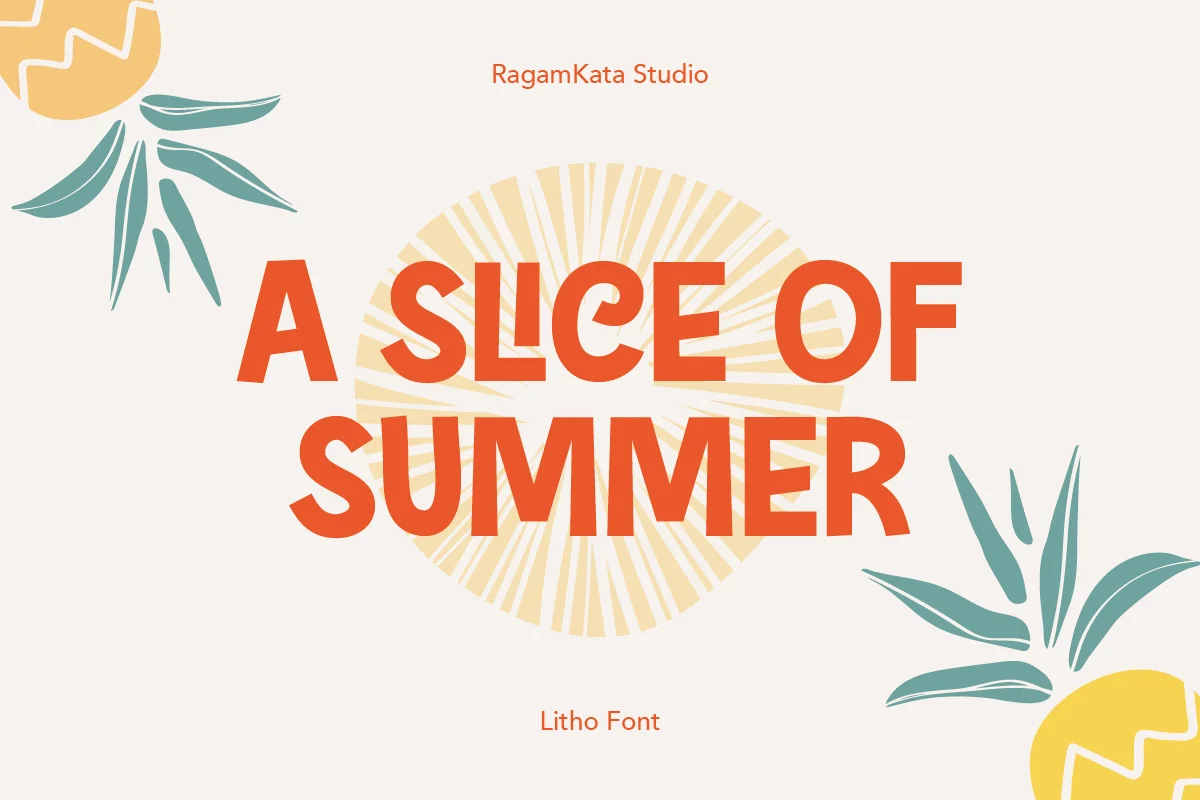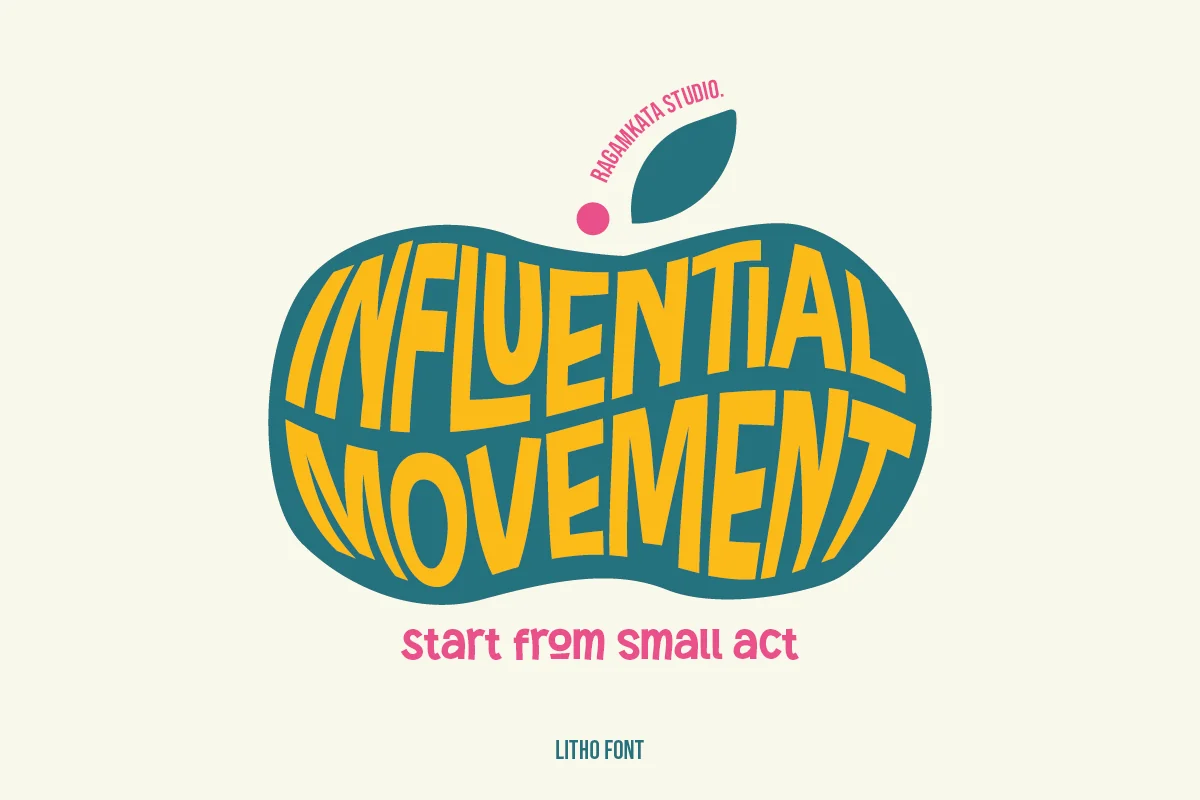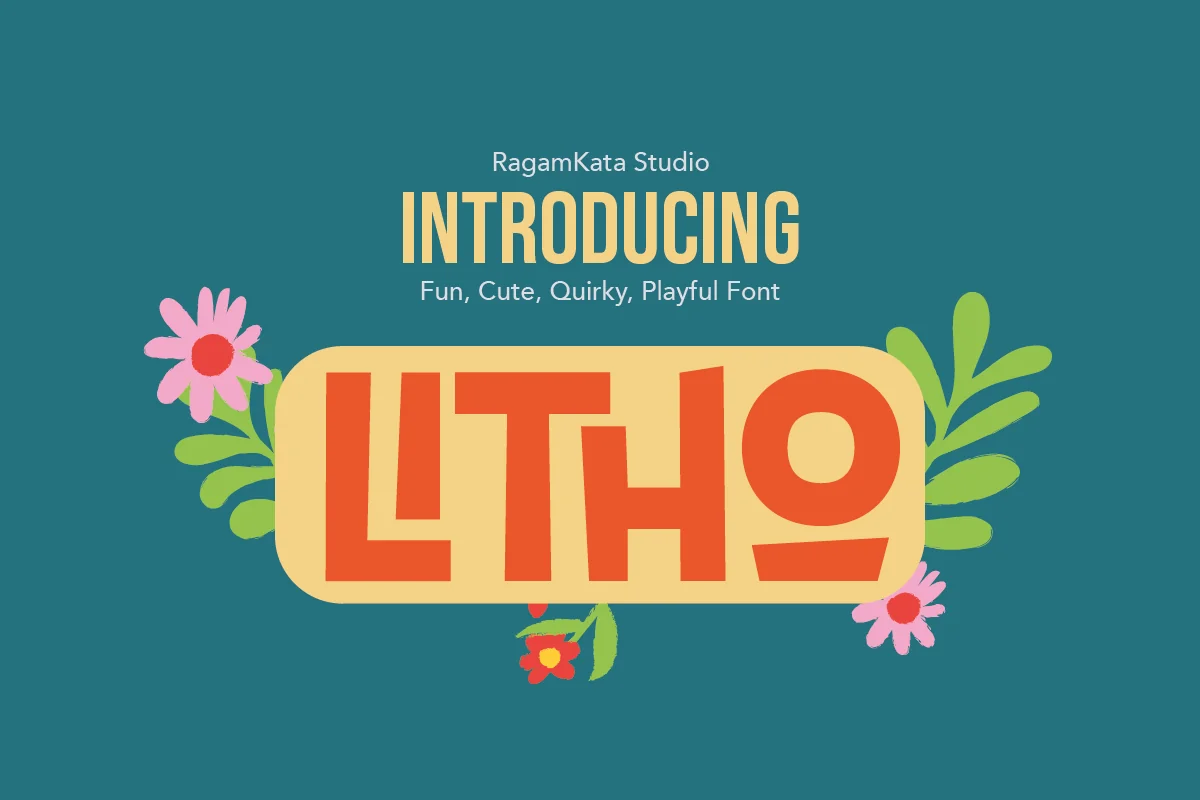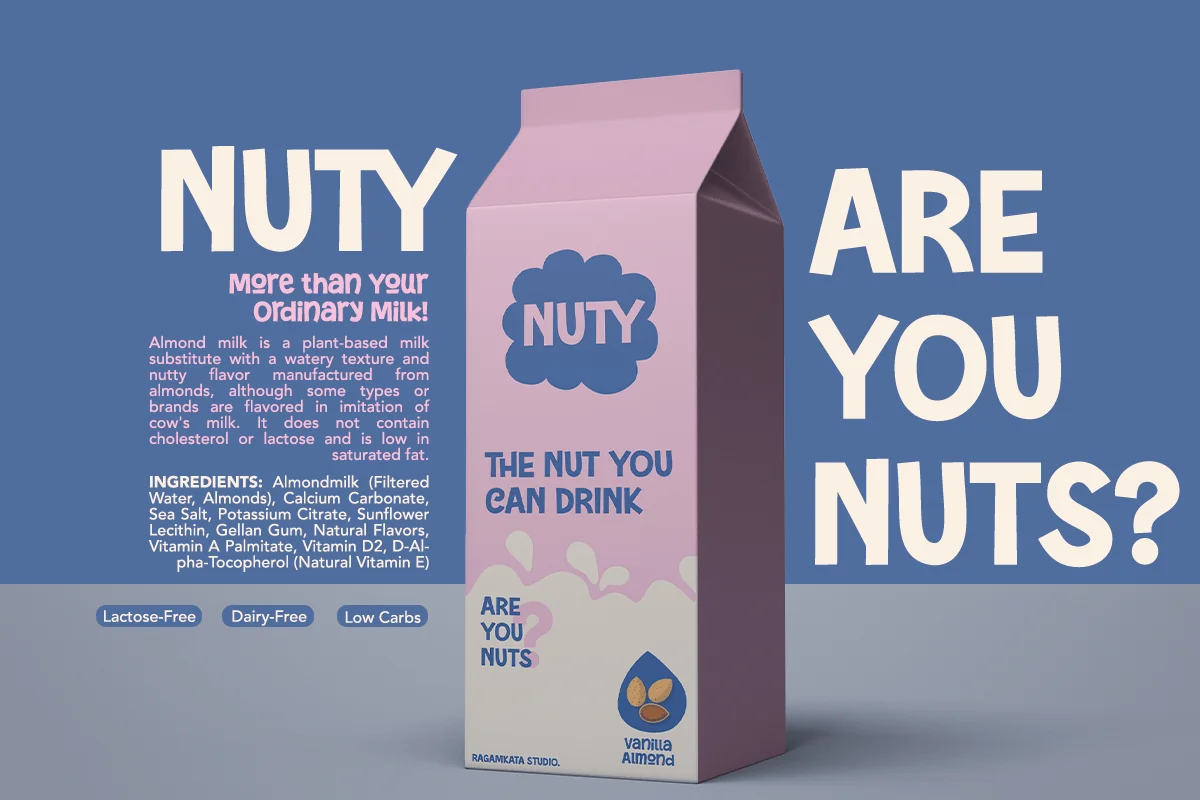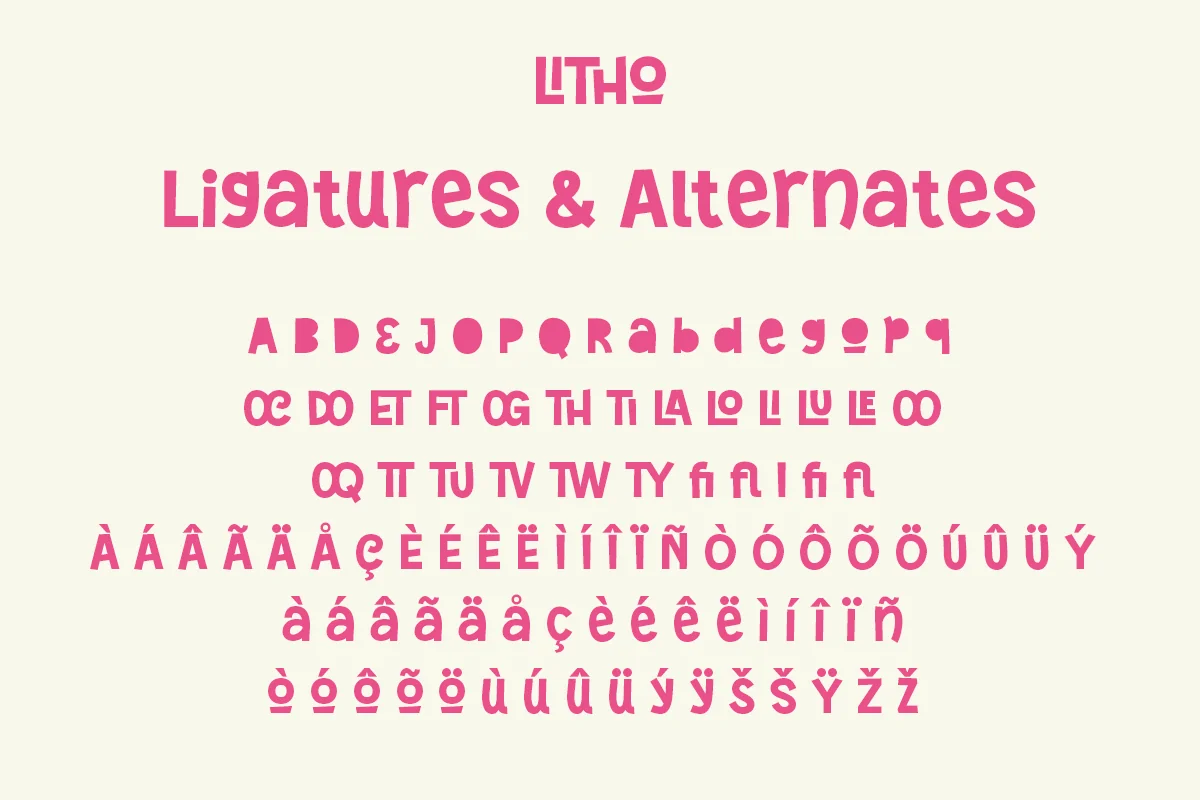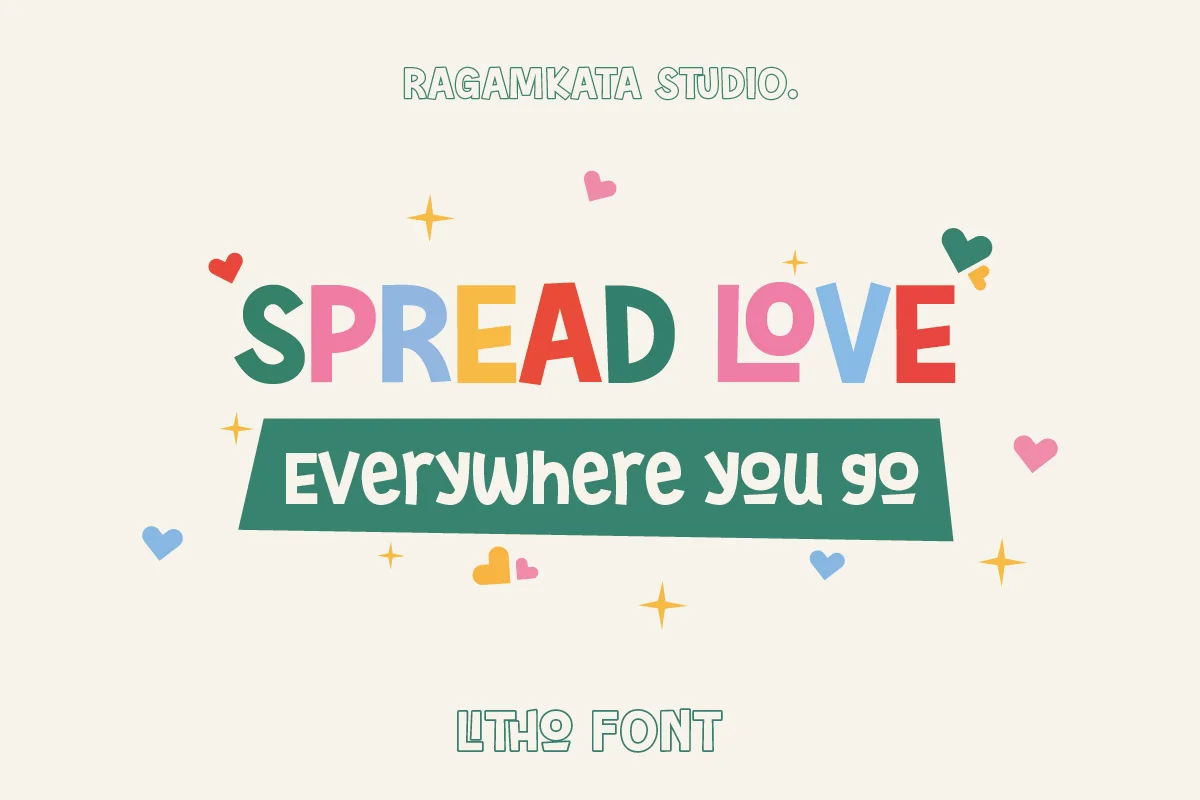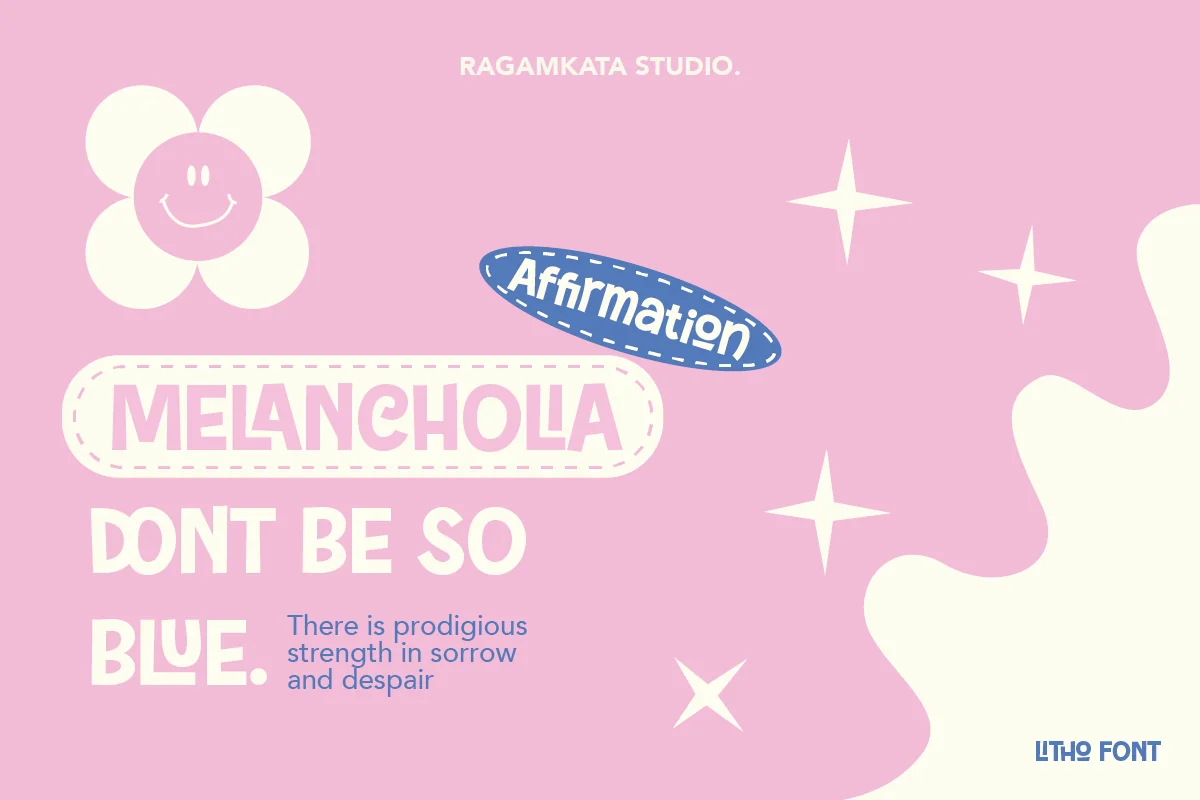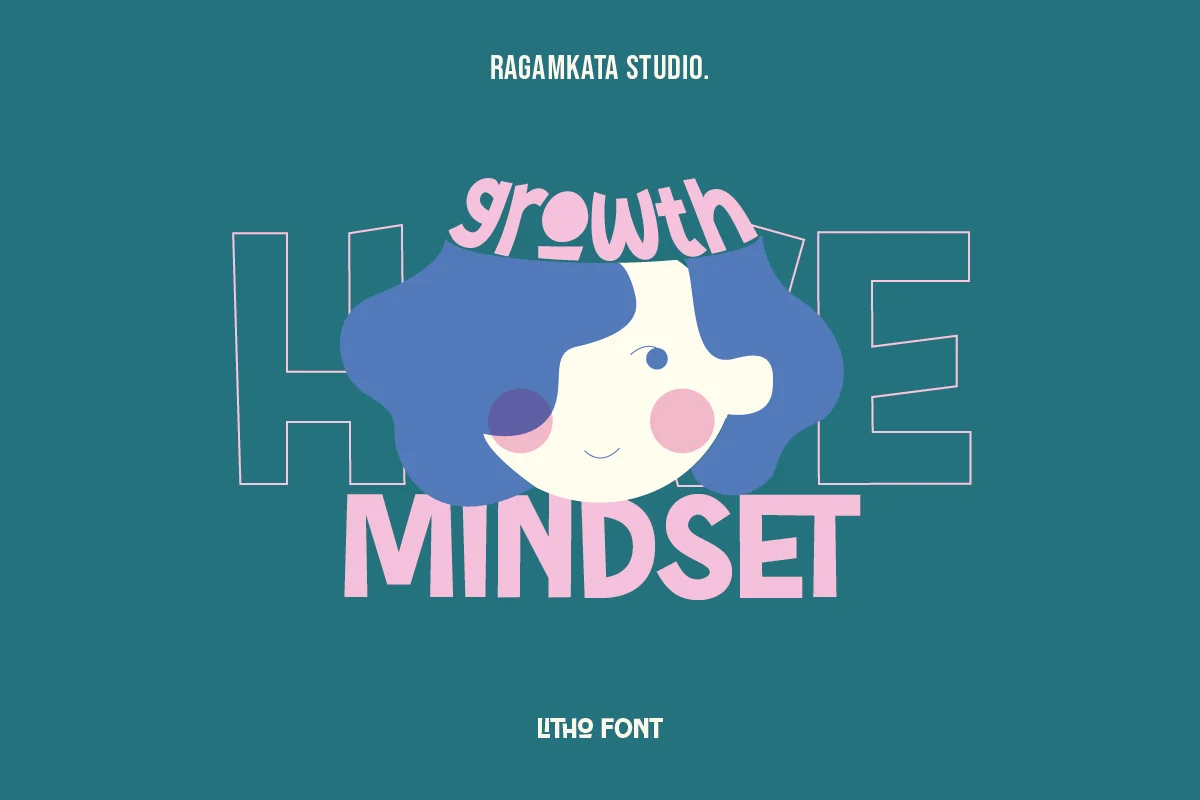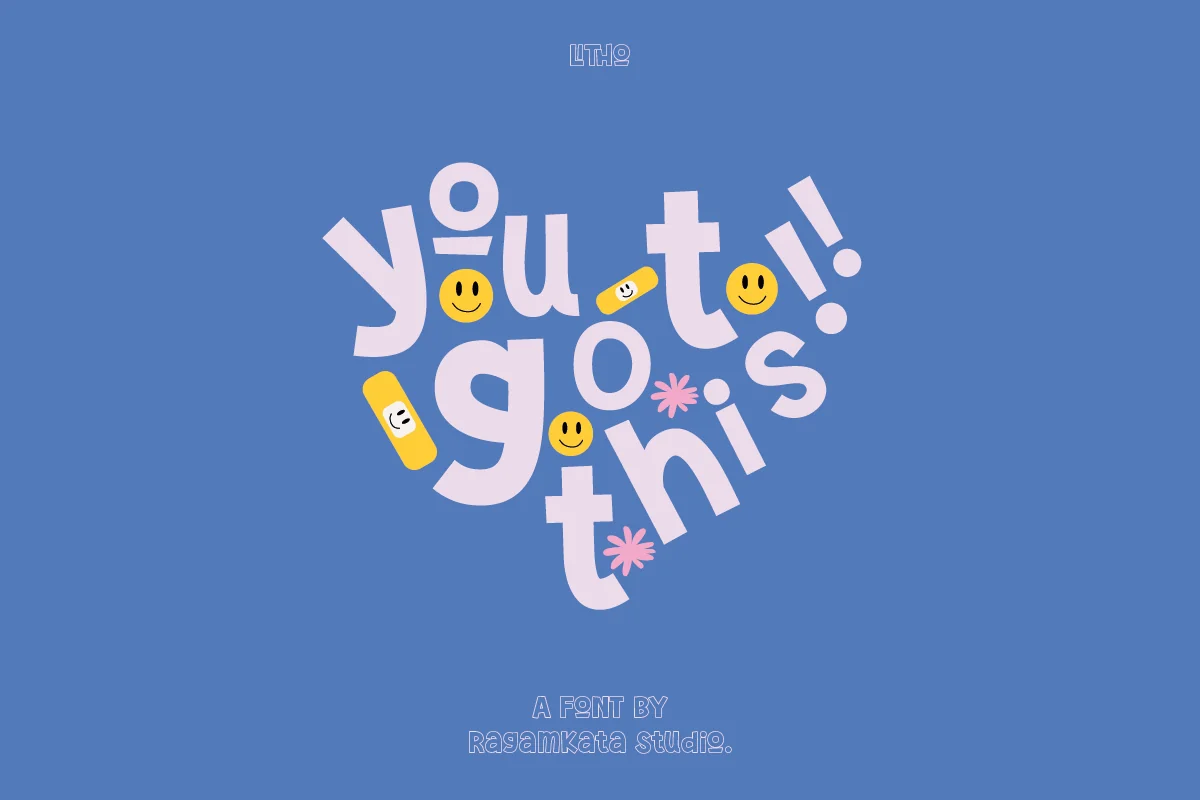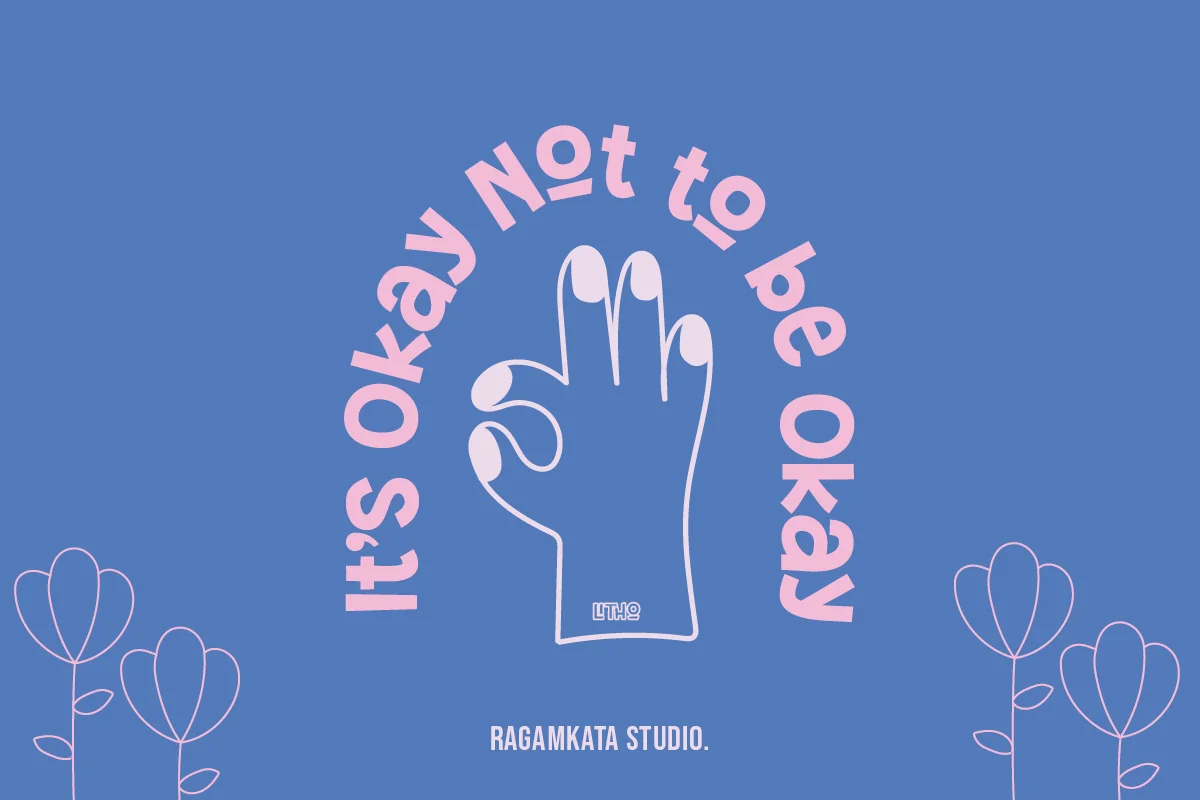
Litho – Fun & Playful Font
Litho, a quirky font that will make your design looks outstanding! With Litho, you can you’re your project even more fun. A playful font with it’s bold and unique shaped font, will make your design catches their eyes. This typeface is a perfect for an invitation, posters, logo, and many more! Get Litho to make your design looks lit!
Litho font will also include some features :
- Ligatures & Alternates
- Letters, numbers, symbols, and punctuation